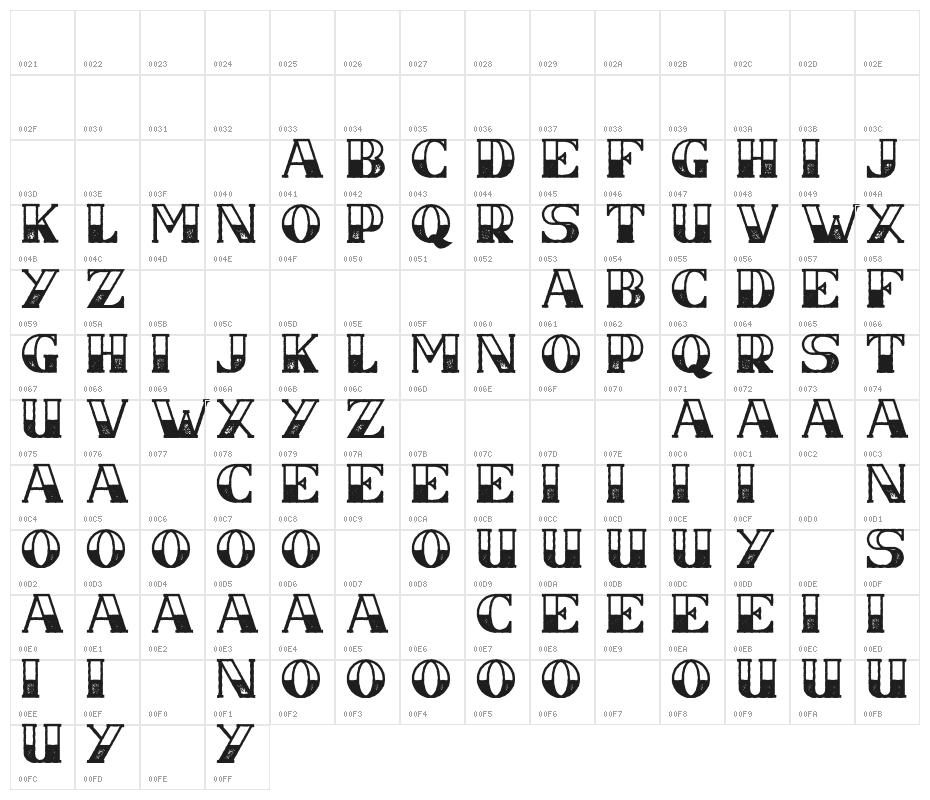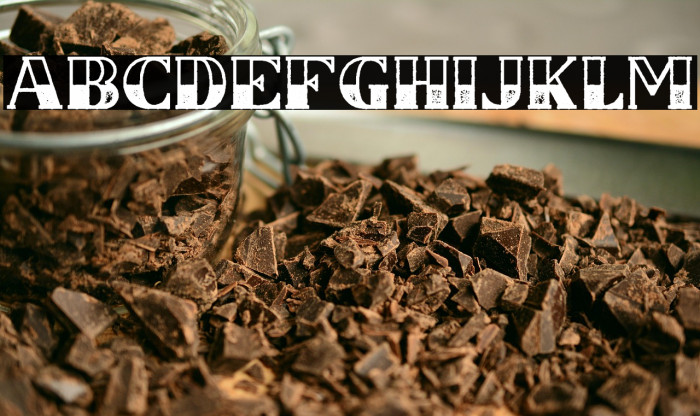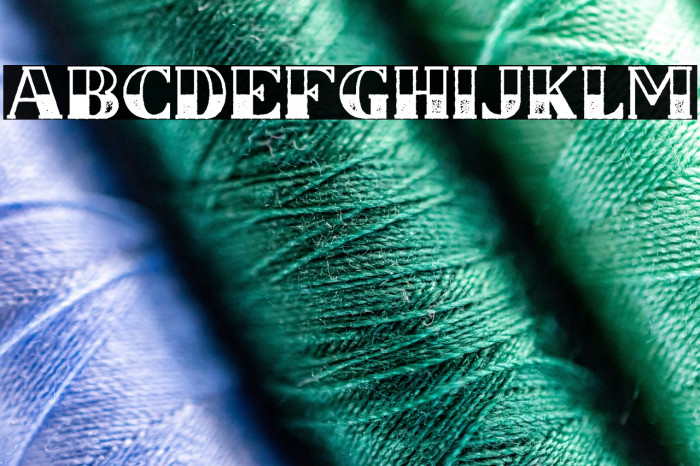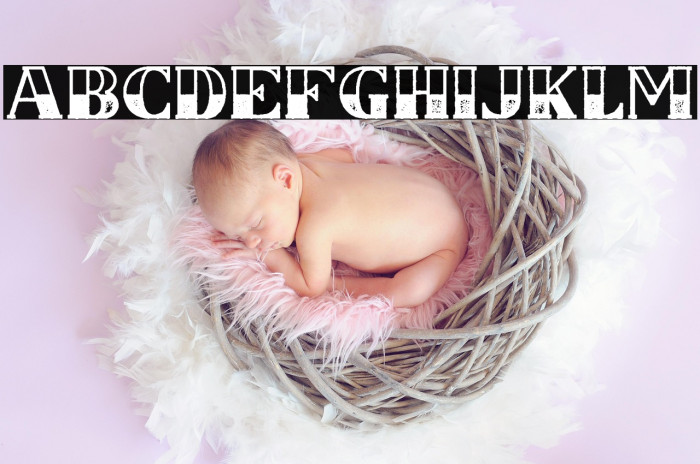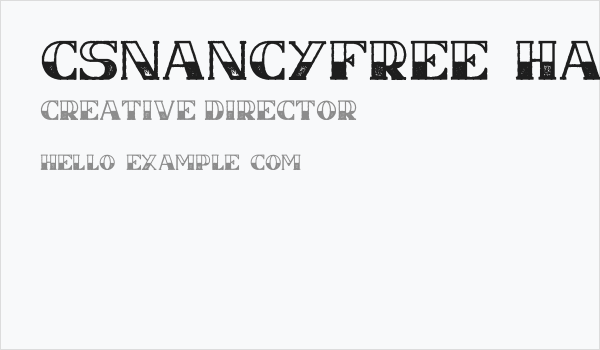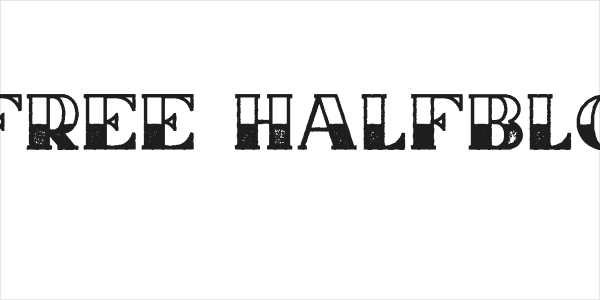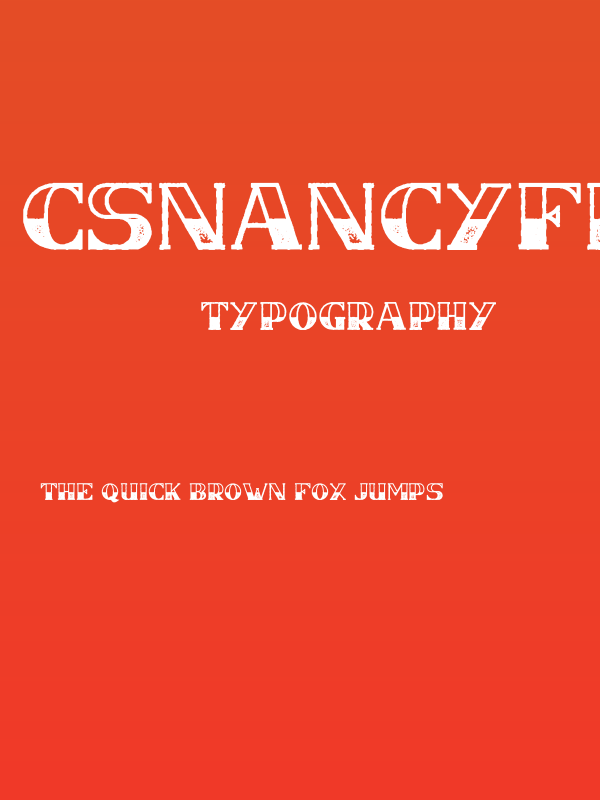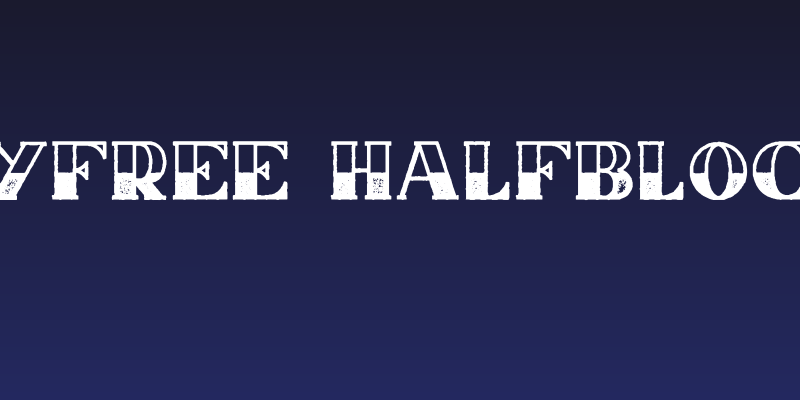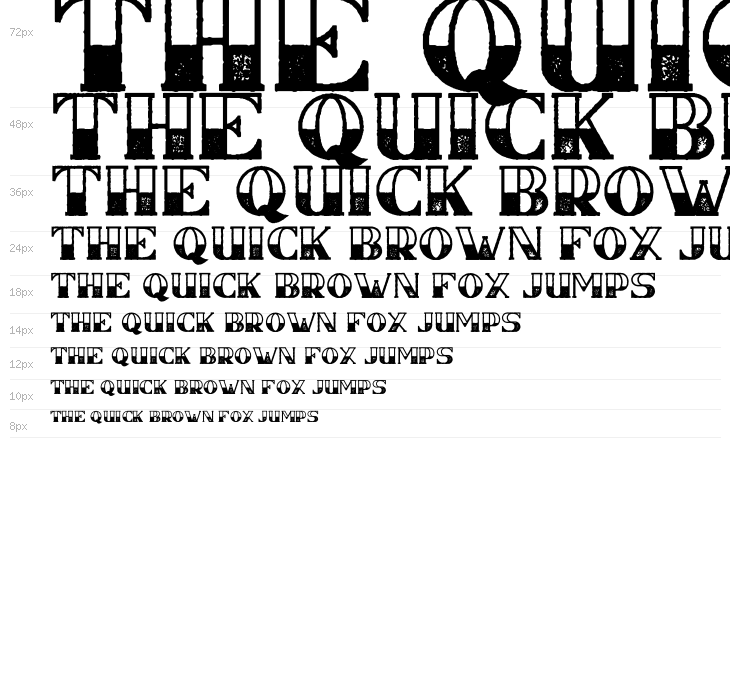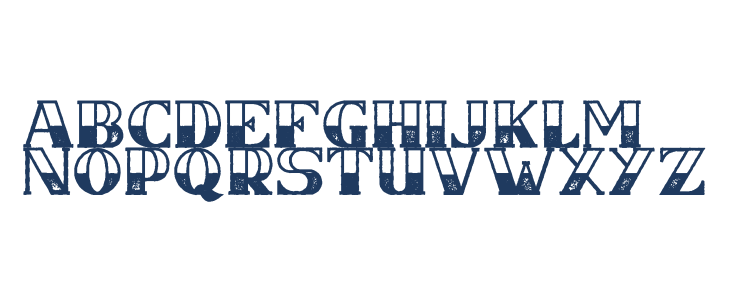
CSNancyFree-HalfblockRough Font
CSNancyFree-HalfblockRough Description
This font exhibits a rugged, distressed appearance with a bold and blocky structure. Each character is designed with a rough texture, giving it a vintage and industrial feel. The uppercase letters are prominent and commanding, making them suitable for impactful designs. The font's unique style is characterized by its uneven edges and worn-out look, reminiscent of old printing techniques or weathered signage. This aesthetic can add a sense of history and authenticity to projects, making it ideal for designs that aim to evoke nostalgia or a gritty, urban vibe.
Overall StyleVintage
Proposed ProjectsIdeal for posters, branding, packaging, and any project requiring a vintage or industrial look.